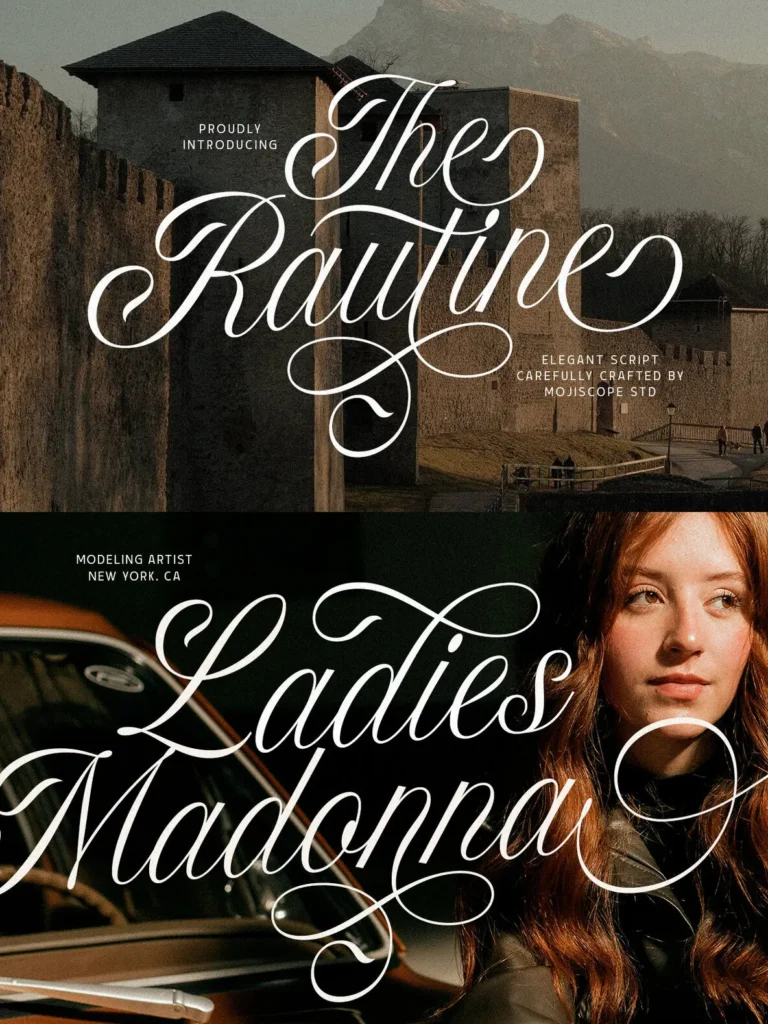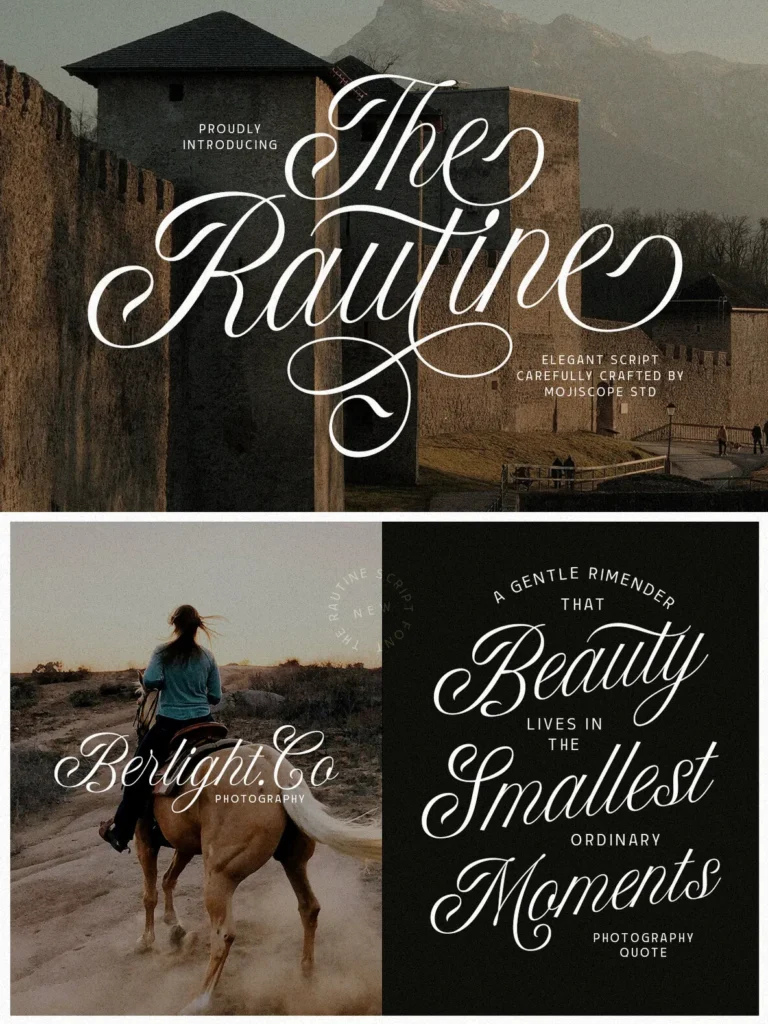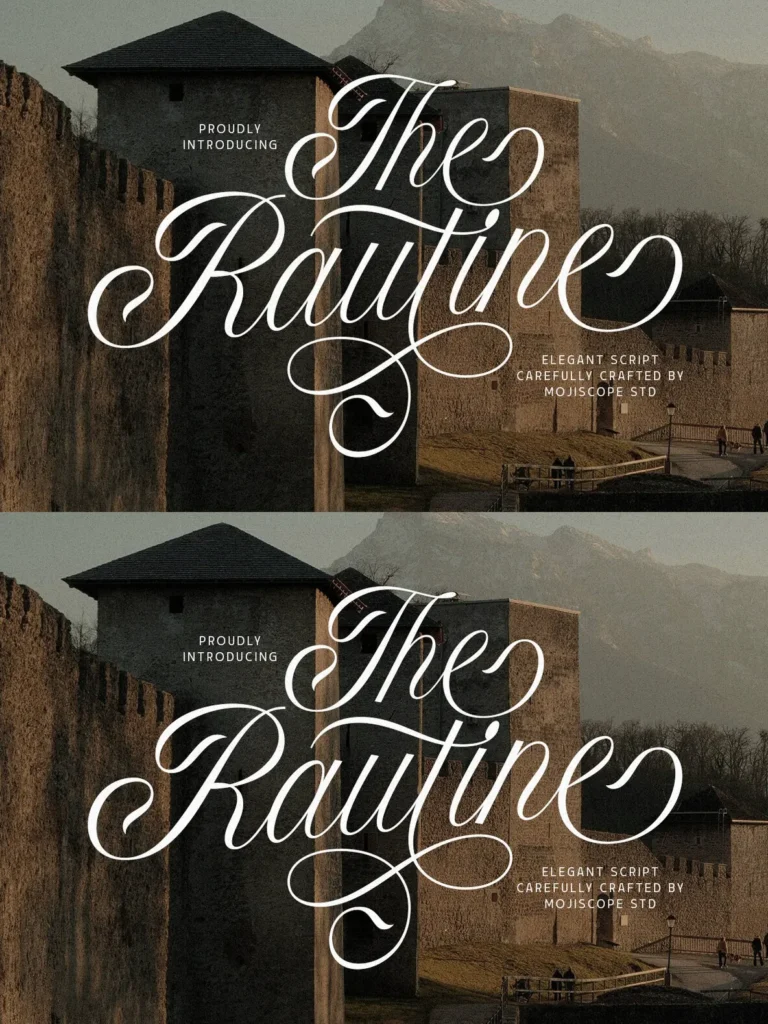
The Rautine — Romance in Fine Script
The Rautine is a beautifully made script font with elegance, class, and timeless sophistication at its core. Its flowing characters, delicate curves, and graceful swashes bring a refined sense of luxury and romance to creative projects that call for a polished typographic voice.
Each letter uses a careful high contrast between thick and thin strokes, giving the font a stunning calligraphic feel that reads as both classic and modern. The Rautine is designed to help your work stand out with poise, from wedding invitations and luxury brand identities to signature logos, high-end packaging, website headers, and beautiful quote graphics.